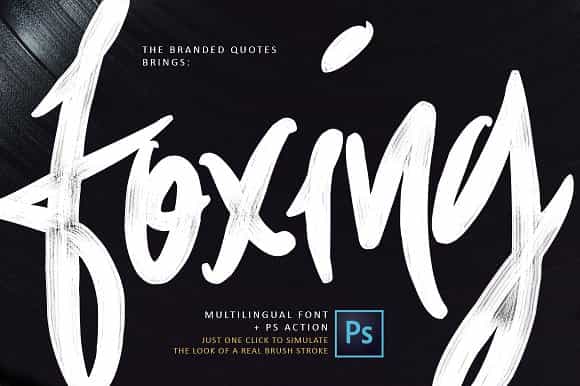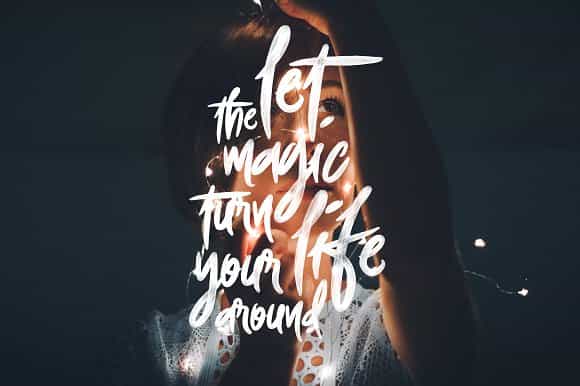
If you are looking for a brush font script font, then this article will be of immense help to you. Look no further! Foxing was created and built by Branded Quotes as a new way in how typography will be this year! With the features of street calligraphy as well as the classic script fonts combined in one font style – Foxing is powerful and elegant while still being as slim as a blade!